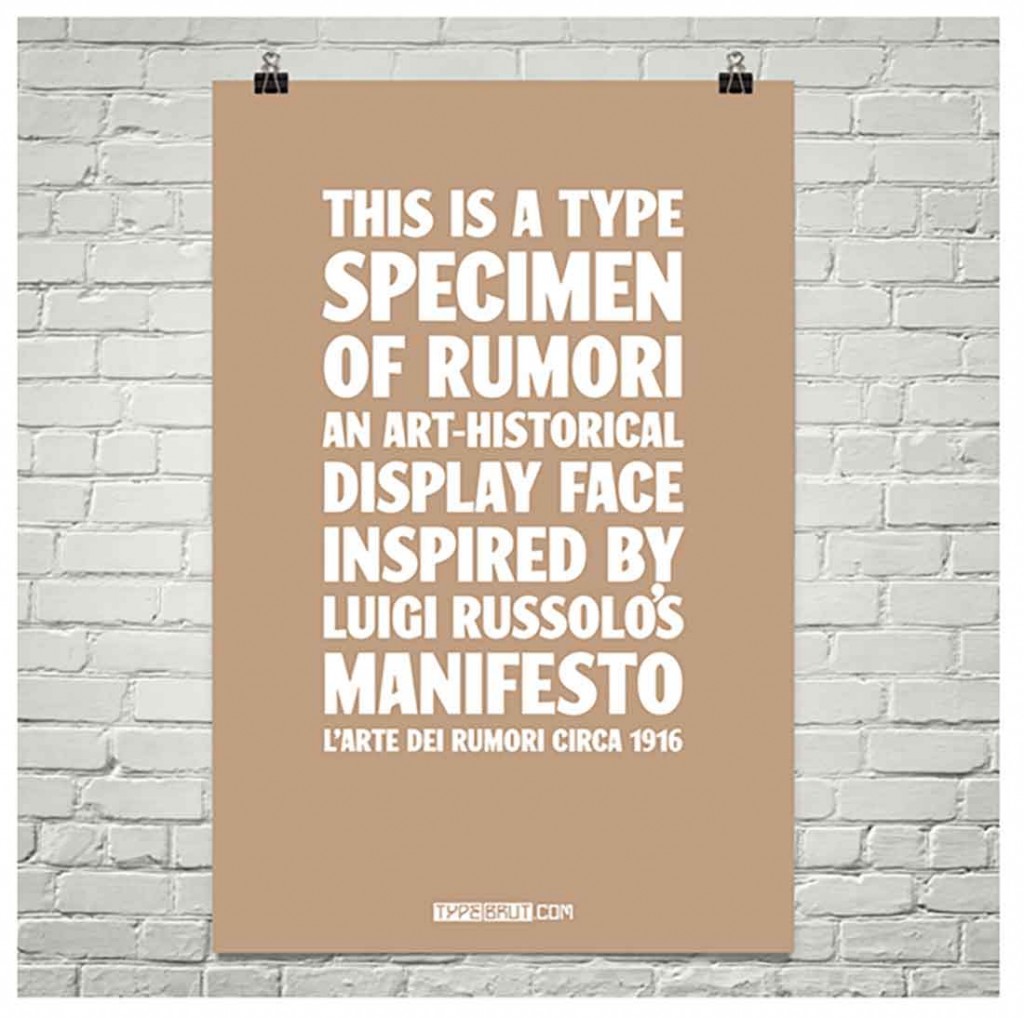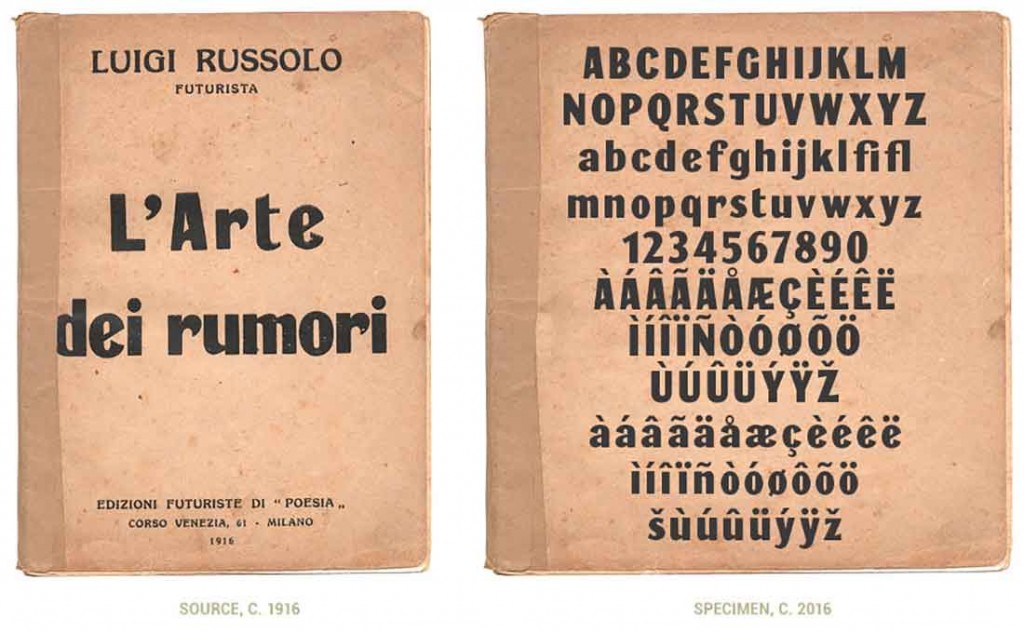
Name: Rumori
Designers: MuirMcneil
Release Date: March 2, 2016
Back story: Founded in 2014 by designer Brian LaRossa, Type Brut is on a mission to create entire alphabets from small samples of letters that were, in most cases, found on art historical documents from the early 20th century. LaRossa, an art director at Scholastic Publishing in New York, says, “Each typeface is part revival and part invention. The whole foundry is an exploration of the line between art and design. I make the typefaces available for free because I’ve long been fascinated by gift economies. Also, to my mind, Type Brut and the display faces I’ve designed for it are first and foremost educational experiments.”
Why’s it called Rumori? Rumori was extrapolated from the title lettering on Luigi Russolo’s Futurist manifesto L’Arte dei Rumori, or The Art of Noises, issued in 1913 and expanded into book form in 1916. It was created by MuirMcNeil for designers Paul Bailey and Yeb Wiersma, who were commissioned to republish Russolo’s manifesto in 2014. In a piece for Design Observer, Rick Poynor notes that Russolo “argues for a radical new form of music based on the sounds of modern industrial life: rumbles, roars, whistles, hisses, gurgles, screeches, and crackles… Russolo, who had until then been a painter, constructed a collection of extraordinary noise machines—intonarumori in Italian—to generate this challengingly abrasive Futurist soundscape.”
What are its distinguishing characteristics? Rumori has an assertive yet friendly overall feel, thanks to thick strokes that are combined with playfully angled terminals.
What should I use it for? Most of Type Brut’s typefaces perform best on posters or typographic marks, and all are a natural conceptual fit for the publications and promotional material of art museums and galleries. Rumori’s warm upper and lowercase characters are well suited for titling and headlines.
Who’s it friends with? Johnston, also designed in 1916, is an interesting sans-serif match. Try Caponi for a complementary range of serif display and text weights. Rumori also pairs well with Chronicle Text.